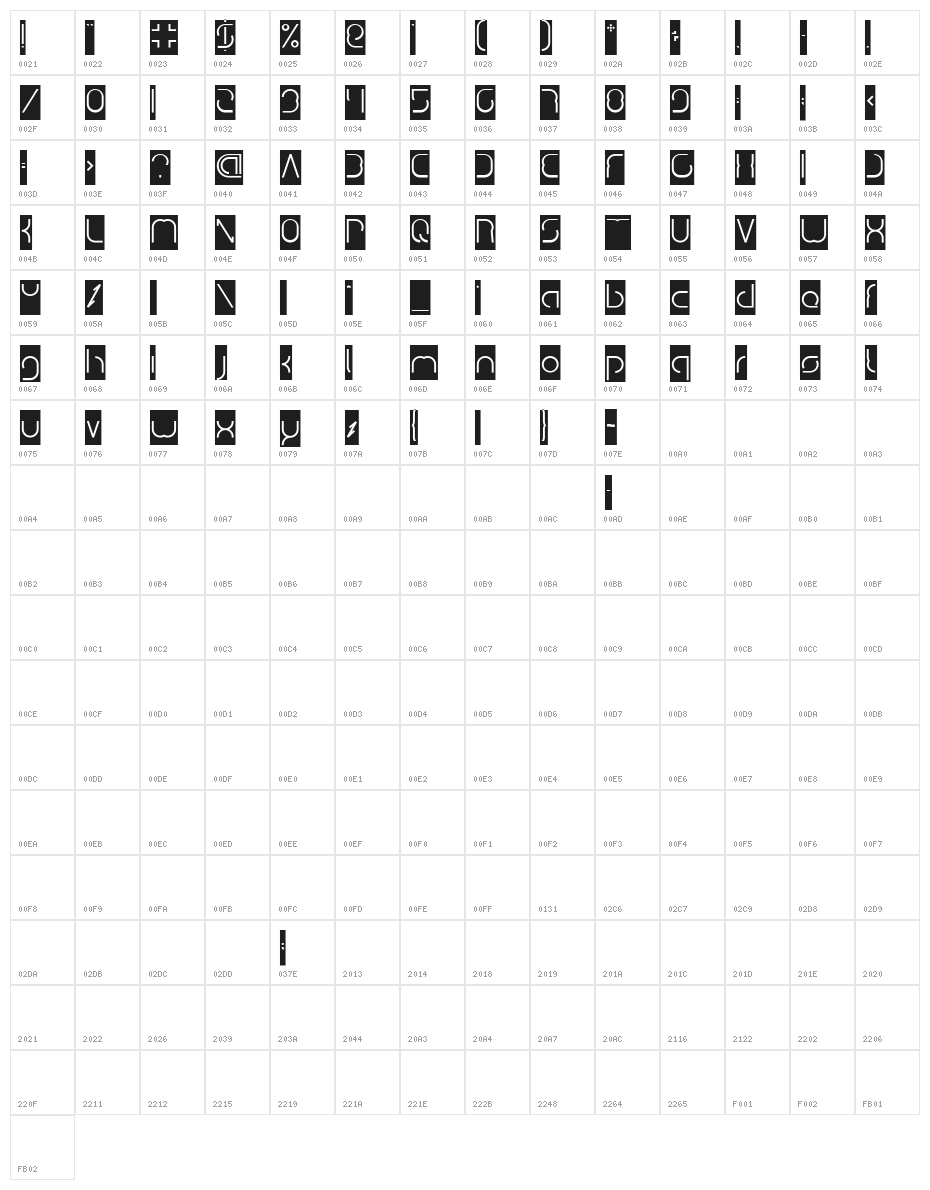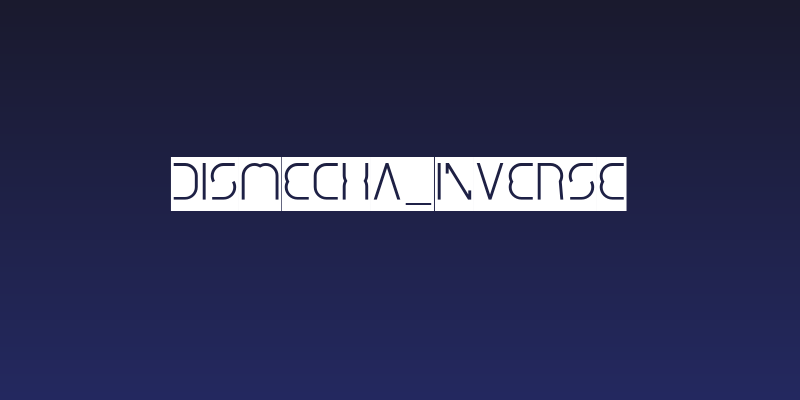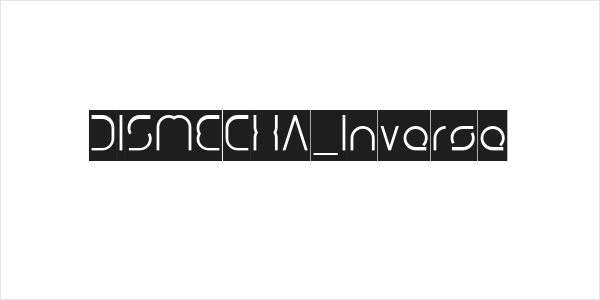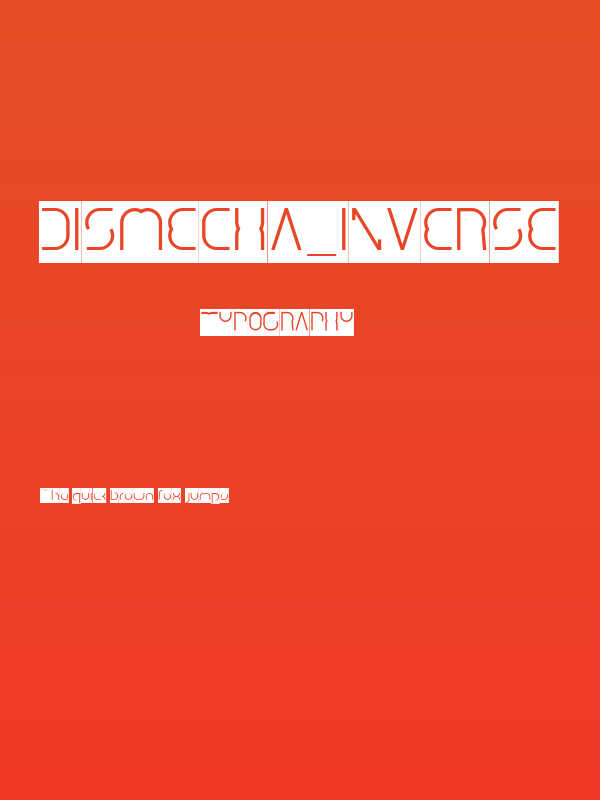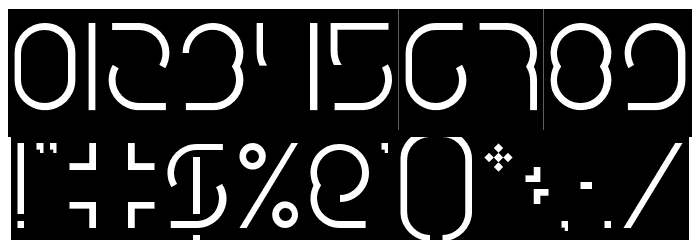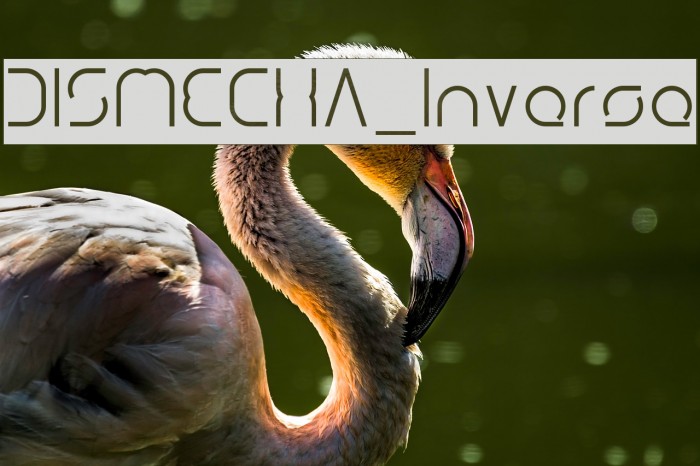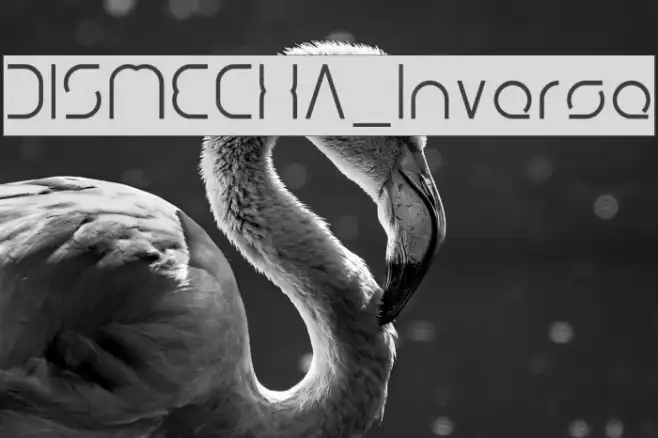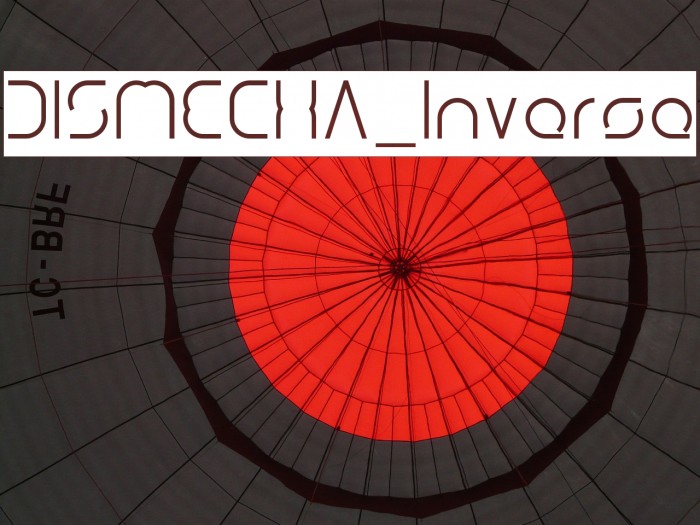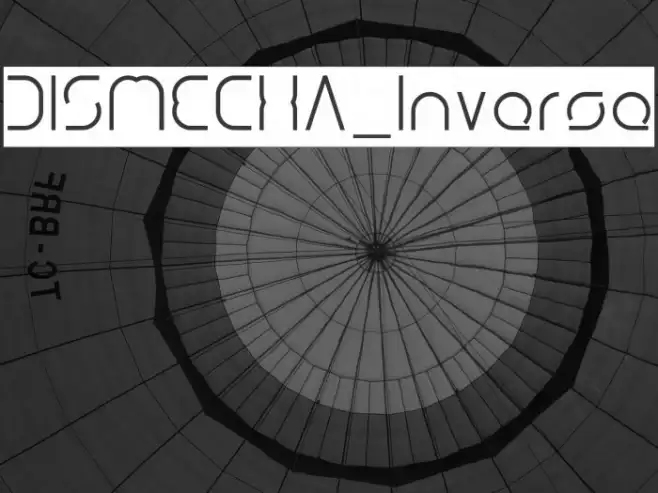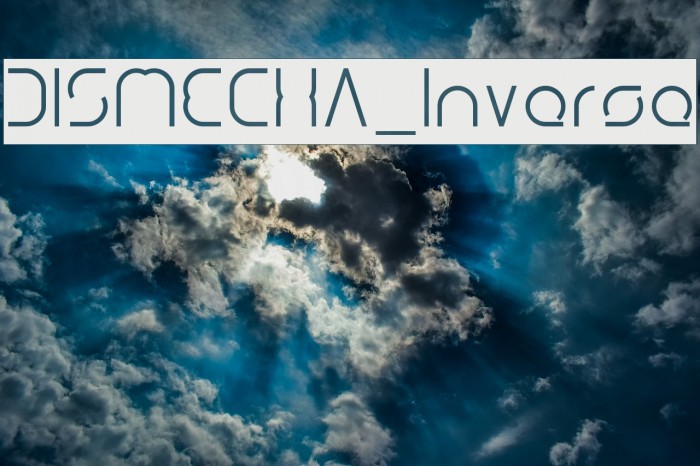
DISMECHA_Inverse Font
DISMECHA_Inverse Description
This font features a futuristic and geometric design, characterized by its clean lines and unique cut-out shapes within each character. The uppercase and lowercase letters maintain a consistent style, with rounded edges and a minimalist aesthetic. The numbers and special characters follow the same design principles, ensuring a cohesive look across all glyphs. This font's distinct style makes it stand out, with a modern and innovative feel that is both eye-catching and functional.
| Proposed Projects | Ideal for technology branding, sci-fi movie posters, modern art installations, and innovative product packaging. |